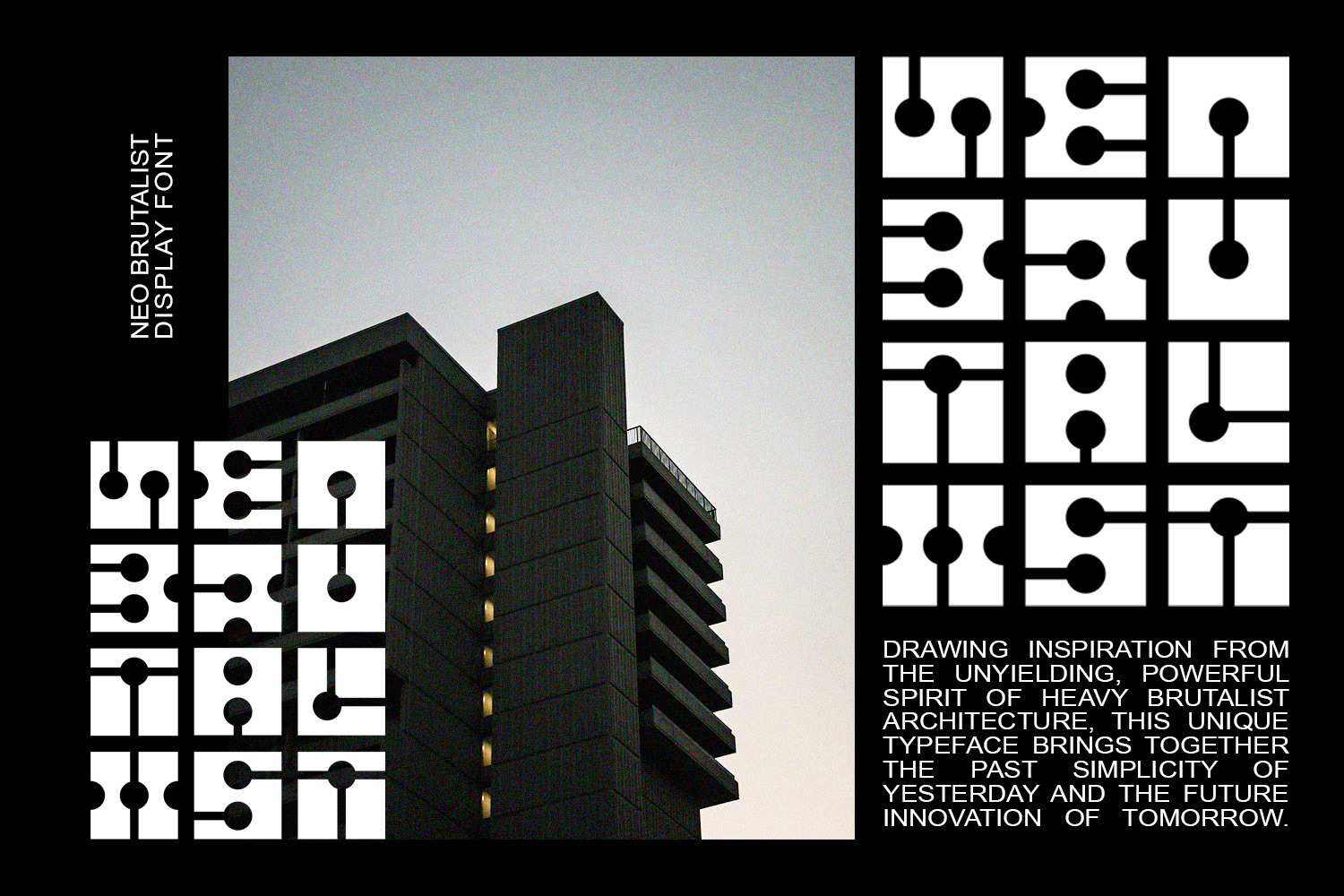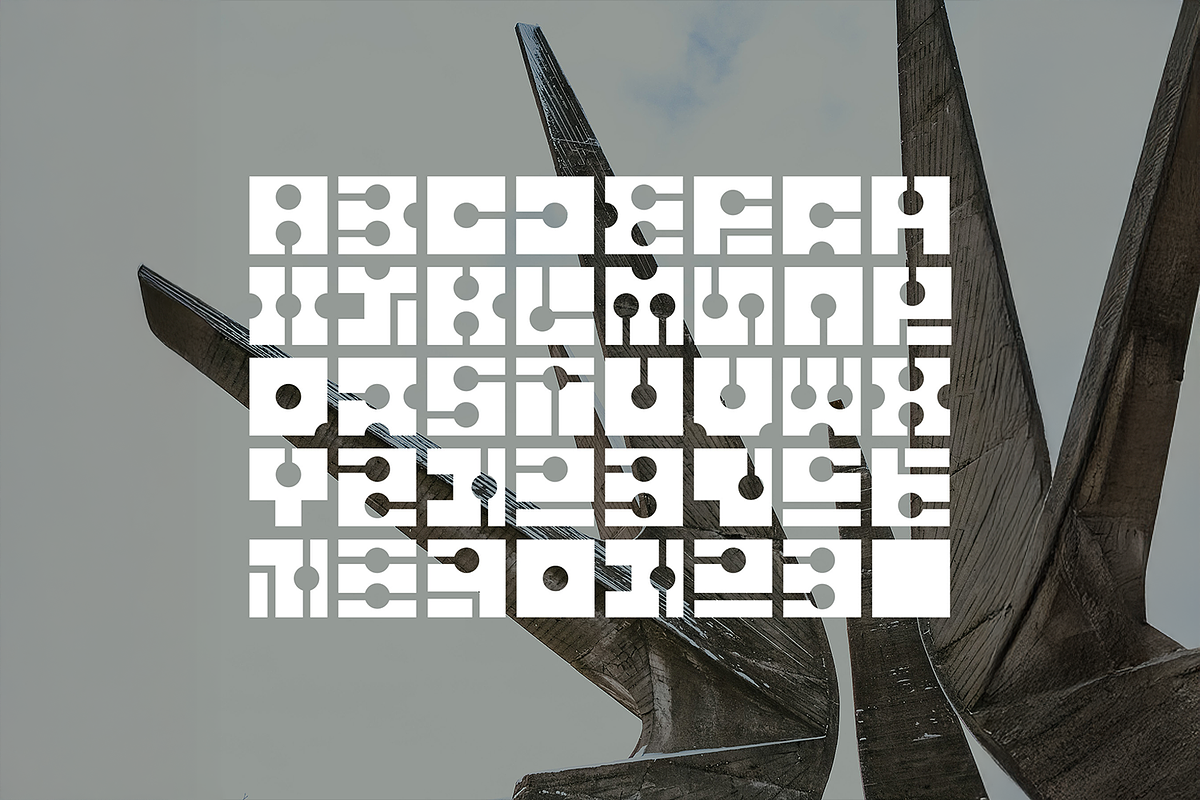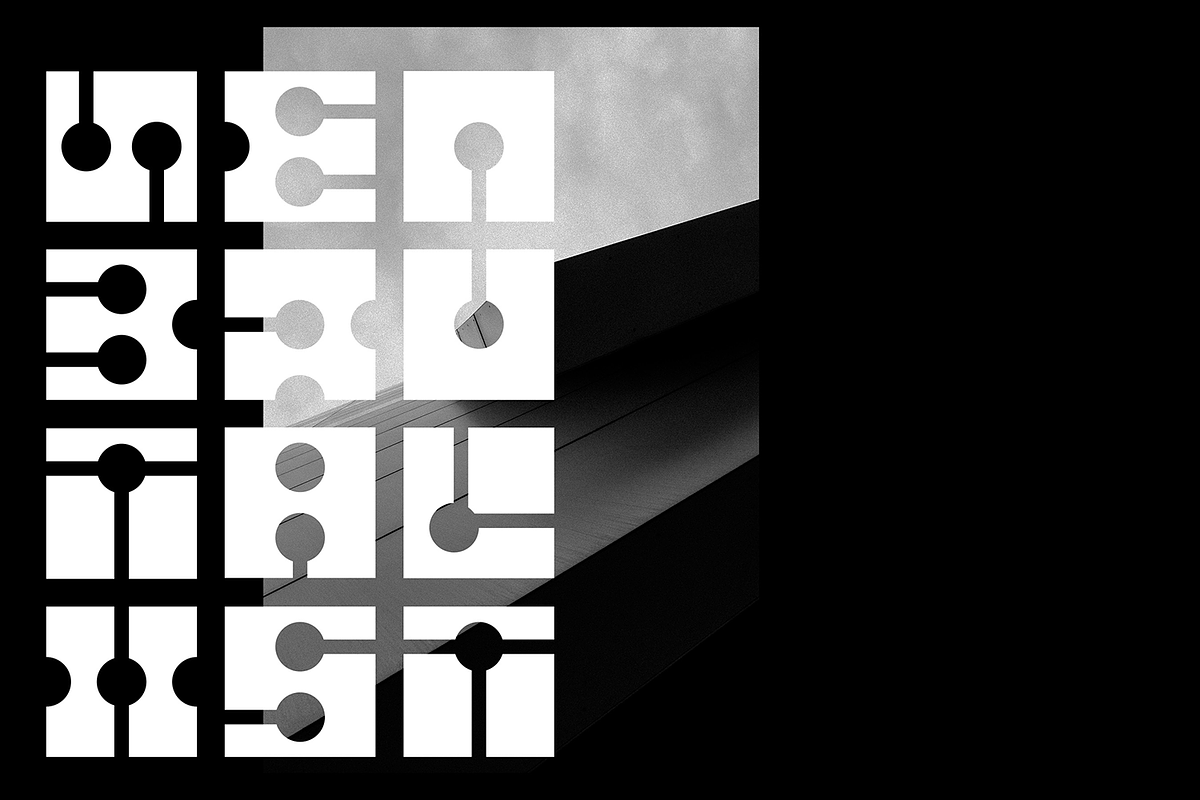
Neo Brutalist Display Font
Presenting Neo Brutalist: The Confluence of Yesterday's Strength and Tomorrow's Innovation
Introducing the Neo Brutalist Display Font, a masterstroke where the raw power of Brutalism and the sleek sophistication of modern design coalesce. Neo Brutalist is not merely a typeface; it's a design ethos, a philosophy, a statement.
Drawing from the unyielding spirit of Brutalist architecture, this typeface brings together the simplicity of yesterday and the innovation of tomorrow. Just as 'Neo' implies, it revisits the past's Brutalist design ideals with a fresh, modern twist. Its futuristic flair is seamlessly integrated with the timeless aesthetic of brutalism, culminating in a font that's unapologetically bold and undeniably contemporary.